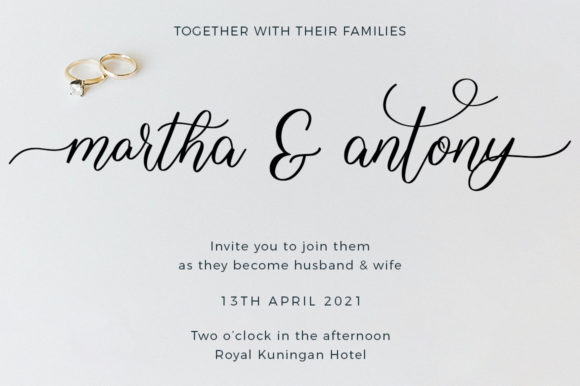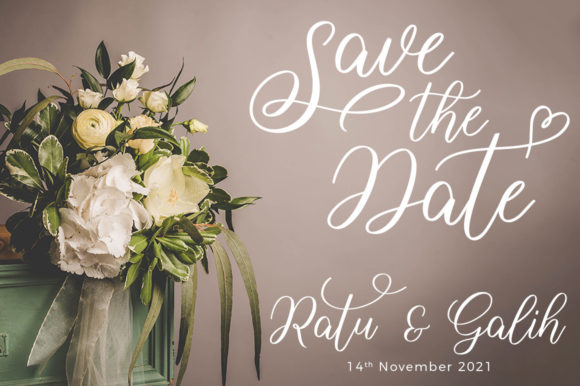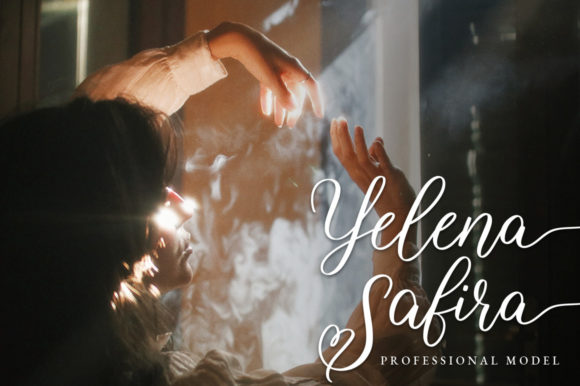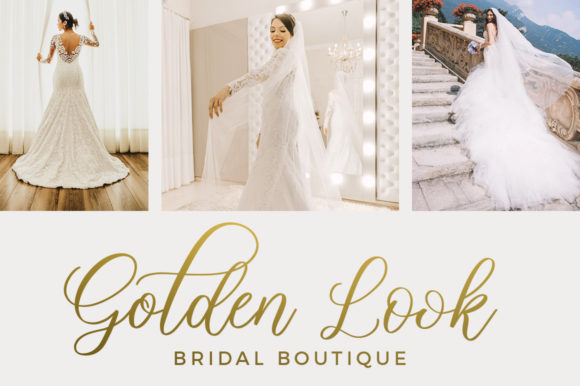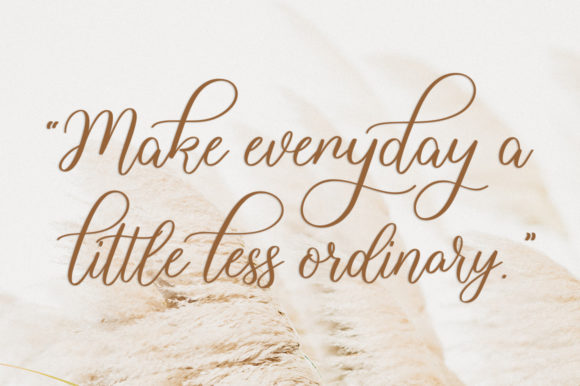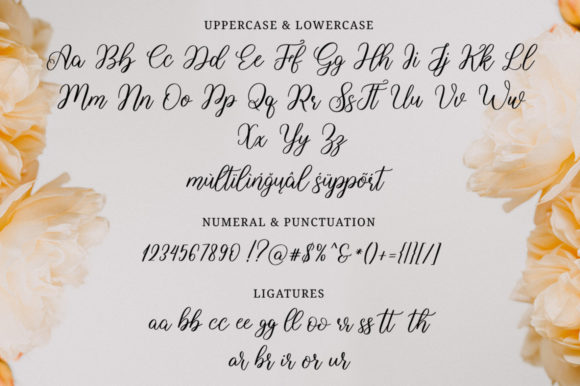
Introducing Angelina Font: The Enchanting Handwritten Script to Elevate Your Designs
Are you on the lookout for a font that can add a touch of romance and elegance to your designs? Look no further than Angelina Font, a beautiful handwritten script font that is sure to captivate your audience. With its versatile nature, Angelina can be used across a wide range of applications, from greeting cards and invitations to headlines and branding materials.
The Charm of Angelina Font
Angelina Font is an enchanting handwritten font that boasts a unique and distinctive character. Its elegant strokes and flowing curves give it a romantic feel that is perfect for designers and crafters looking to add a touch of sophistication to their work. Whether you’re creating a wedding invitation, a greeting card, or a social media graphic, Angelina Font is sure to make your design stand out.
Key Features of Angelina Font
- PUA Encoded: Angelina Font is PUA (Private Use Area) encoded, which means you can access all of the beautiful glyphs and swashes with ease. This feature makes it easy to customize your designs and add a personal touch.
- Versatile: Angelina Font is a versatile script font that can be used across a wide range of applications, from print materials to digital designs.
- Handwritten: With its handwritten feel, Angelina Font adds a touch of personality and warmth to any design.
- Romantic: The elegant strokes and flowing curves of Angelina Font give it a romantic feel that is perfect for designs that require a touch of sophistication.
Uses of Angelina Font
Angelina Font is a versatile font that can be used in a variety of applications, including:
- Greeting Cards: Add a touch of elegance to your greeting cards with Angelina Font.
- Invitations: Use Angelina Font to create beautiful wedding invitations, birthday invitations, and other special occasion invitations.
- Headlines: Add a touch of sophistication to your headlines with Angelina Font.
- Branding: Use Angelina Font to create a unique and memorable brand identity.
- Social Media Graphics: Add a touch of elegance to your social media graphics with Angelina Font.
Tips for Using Angelina Font
Here are a few tips for using Angelina Font in your designs:
- Pair with Other Fonts: Pair Angelina Font with other fonts to create a unique and interesting contrast.
- Use Swashes: Use the swashes and glyphs in Angelina Font to add a touch of elegance to your design.
Angelina Font is a beautiful handwritten script font that is sure to add a touch of romance and elegance to your designs. With its versatile nature and PUA encoding, Angelina Font is perfect for designers and crafters looking to create unique and memorable designs. Whether you’re creating a greeting card, a headline, or a social media graphic, Angelina Font is sure to make your design stand out.